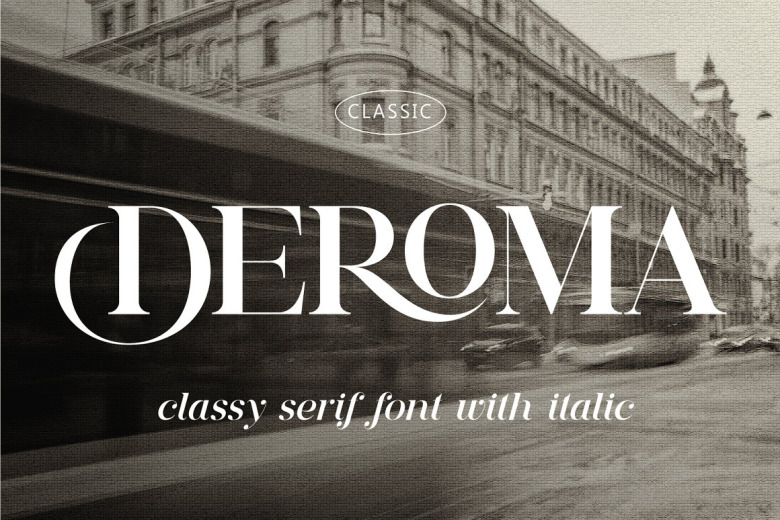
Deroma Font
Deroma is an editorial serif font (regular and italic) It beautifully combines a vintage look with a modern flair. Deroma will be perfect for many projects: logo, wedding designs, social media posts, advertisements, product packaging, product designs, label, photography, watermark, invitation, or whatever project you’re working on.
Deroma Classy Serif Font